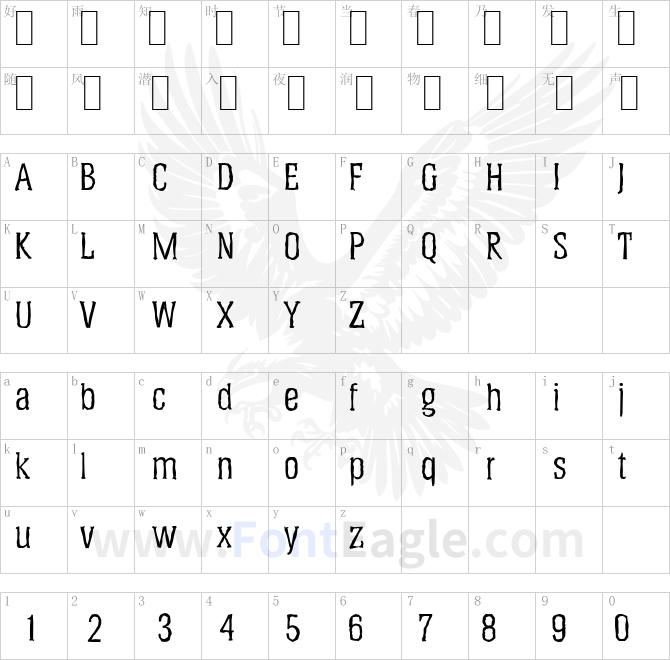
- Font name:HeliumAntique
- Font Subfamily ID:SoftMaker Software GmbH HeliumAntique-Regular
- Font Full Name:HeliumAntique-Regular
- Postscript:HeliumAntique